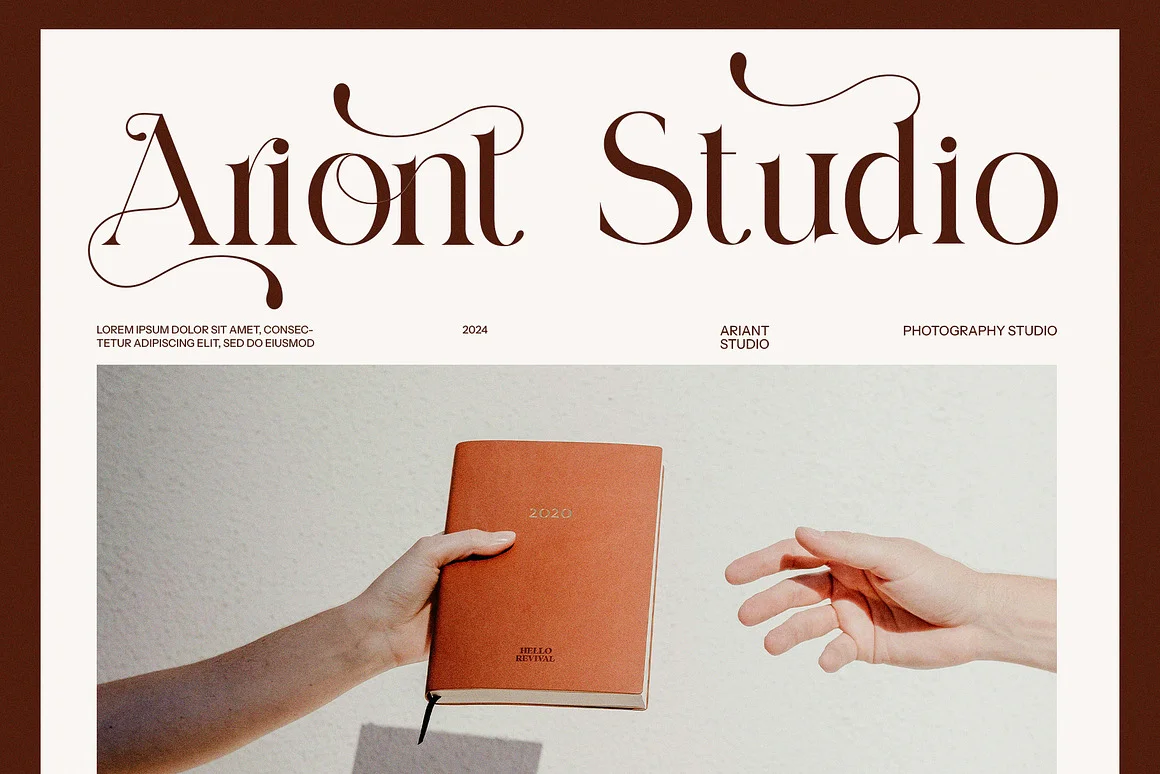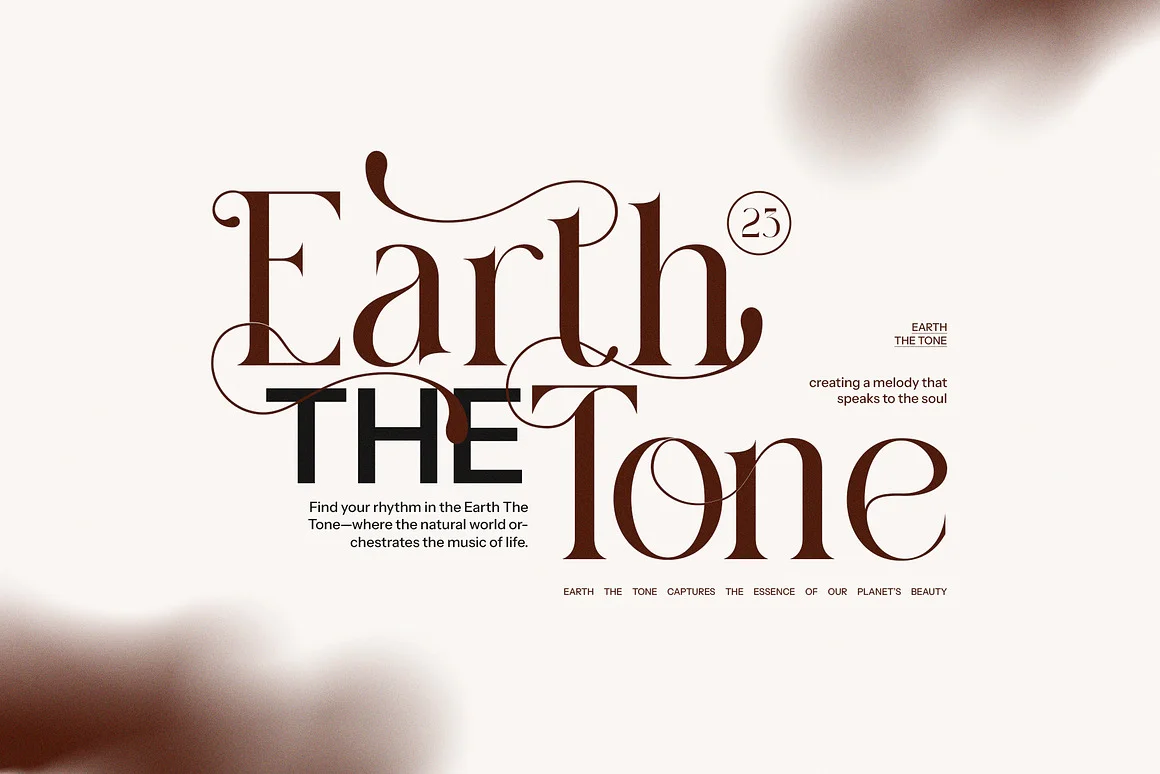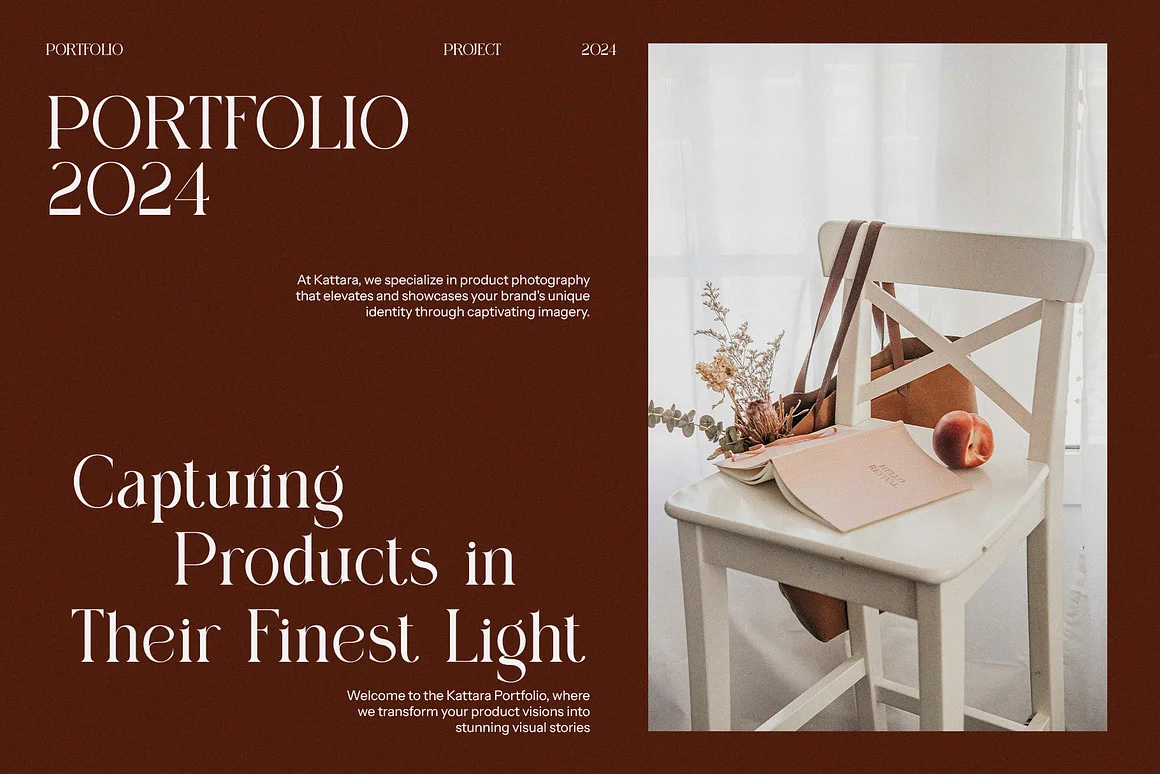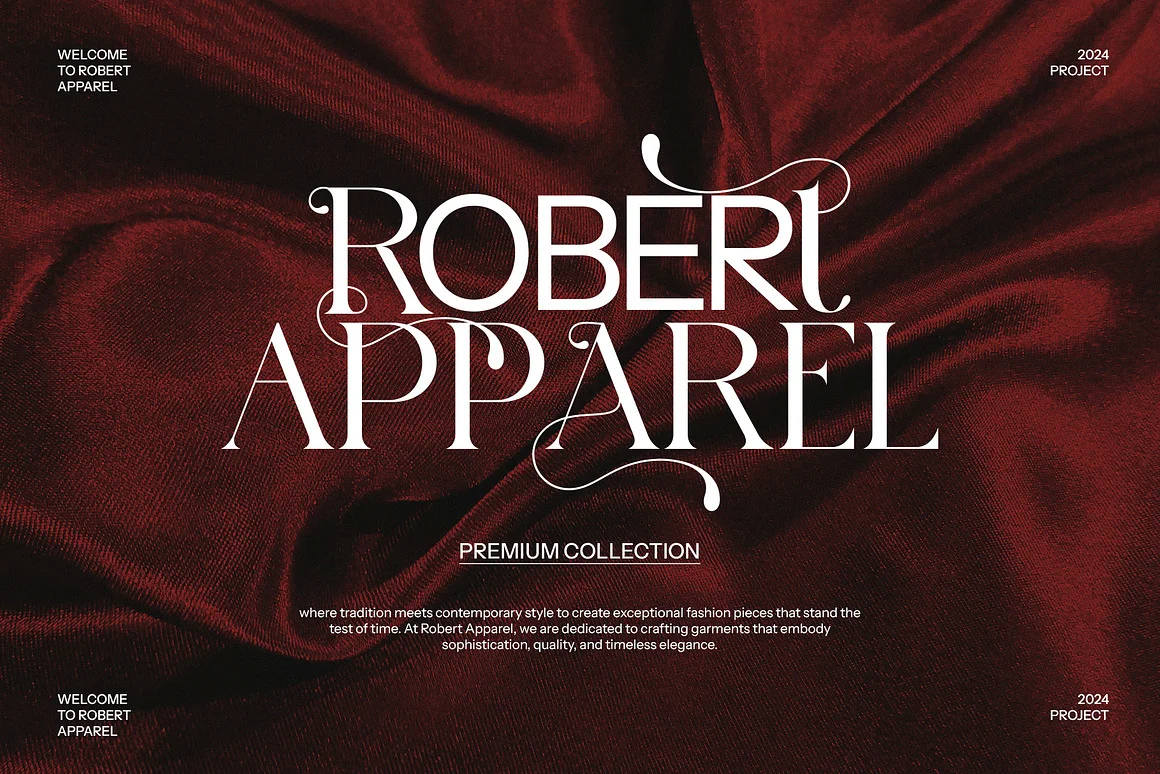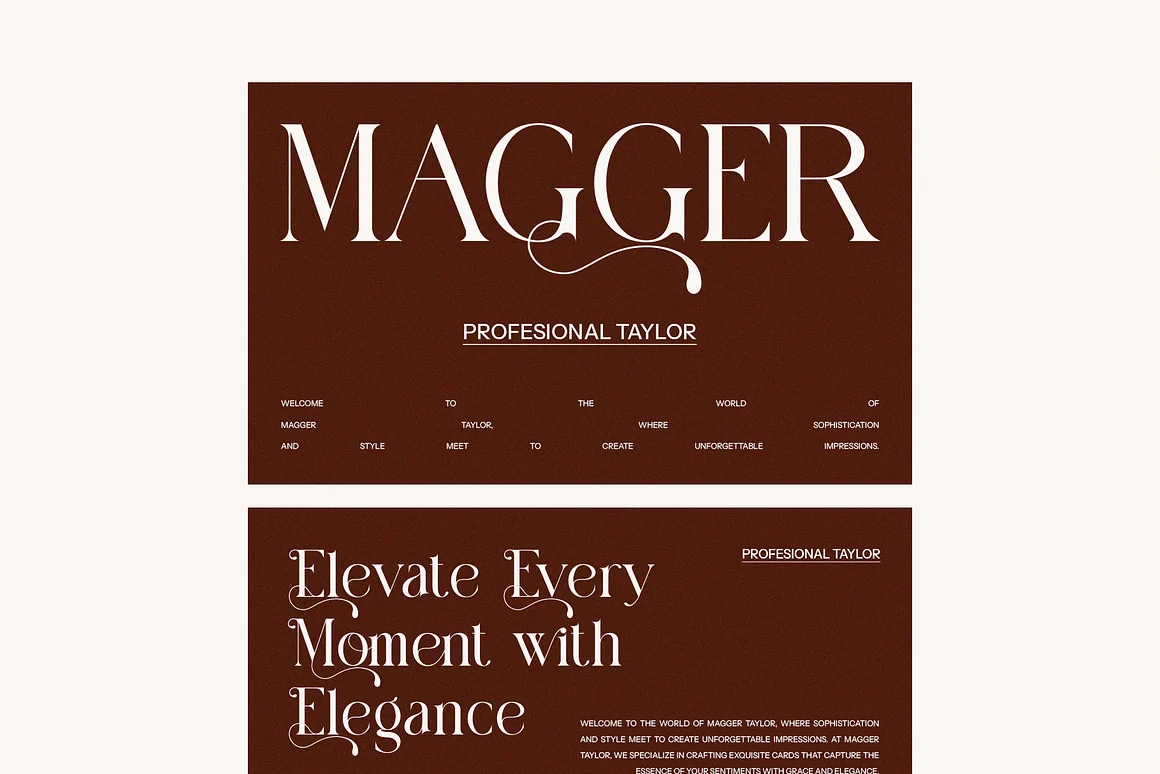
London Elegant Serif Font
Designers reaching for London Elegant Serif find a typeface that holds up across diverse media — print, web, and motion.
Common applications include business cards, posters, web headers, advertising materials, book covers, and corporate identity systems.